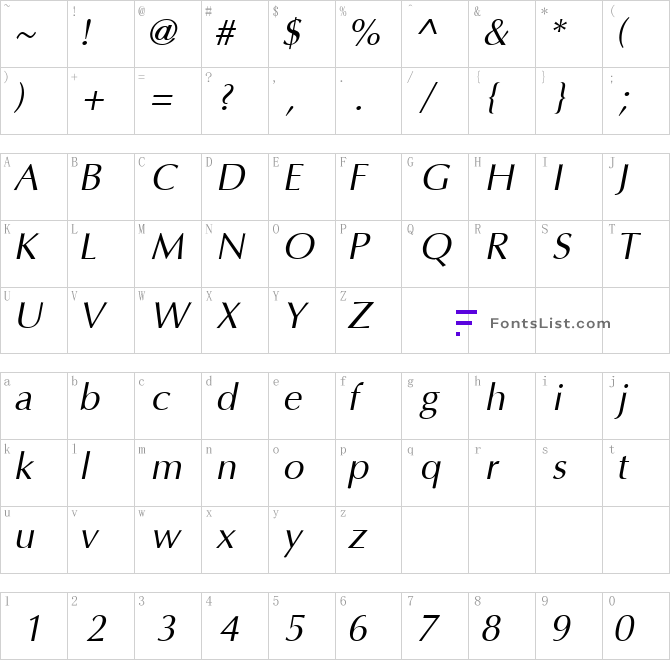
- Font Name:AGOpus
AGOpus-Oblique-copy-2-.ttf is a very beautiful artistic font, AGOpus-Oblique-copy-2-.ttf is widely used in the design and printing of various books and pictures,AGOpus-Oblique-copy-2-.ttf has a strong visual impact,AGOpus-Oblique-copy-2-.ttf is a commonly used font in newspapers, magazines and books, and is used in posters, e-commerce Poster design, store design, logo design, font design and other fields.AGOpus-Oblique-copy-2-.